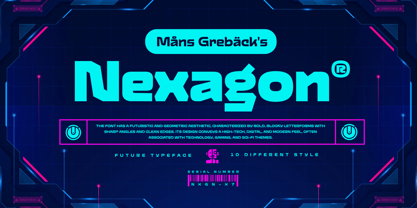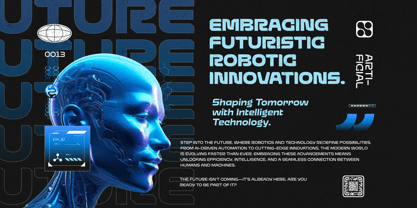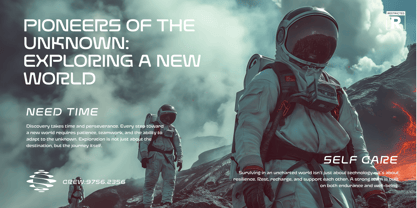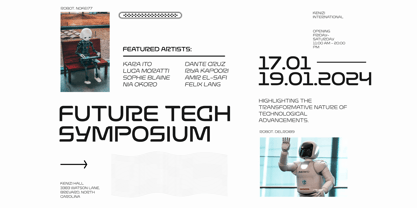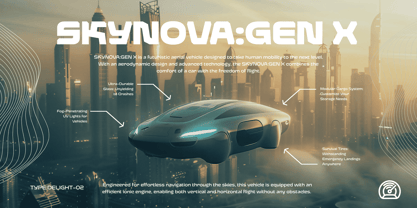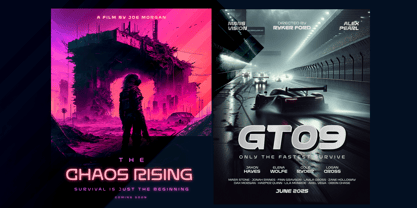
Nexagon
por Mans Greback
La familia tipográfica Nexagon fue diseñada por Måns Grebäck y publicada por Mans Greback. Nexagon contiene 10 estilos y opciones de paquete familiar.
Nexagon is a geometric sans-serif typeface with rounded terminals, giving it a soft but techy appearence. Its distinct construction makes it legible while retaining a unique expression.
Use Nexagon for technology, sports, and gaming-related projects; great for logotypes and headlines, but also works wonders in running text.
The font is built with advanced OpenType functionality and guaranteed top-notch quality, containing stylistic and contextual alternates, ligatures and more automatic and manual features; all to give you full control and customizability.
It has extensive lingual support, covering all Latin-based languages, from North Europa to South Africa, from America to South-East Asia. It contains all characters and symbols you'll ever need, including all punctuation and numbers.
Mans Greback is the designer behind Nexagon.
Acerca de Mans Greback
Måns Grebäck is a type designer and font creator specializing in script typography, but with a portfolio containing a vast selection of styles. Typefaces from Måns Grebäck are used as company and product logotypes, as well as headlines and in advertisement by a wide range of industries world-wide. Founded by Måns Grebäck in 2010, Mans Greback AB originally went under the name of Mawns Fonts and later Aring Typeface AB. While the foundry has its seat Örebro, Sweden, Måns also lives in Portugal. The Premium Foundry page can be viewed Here.